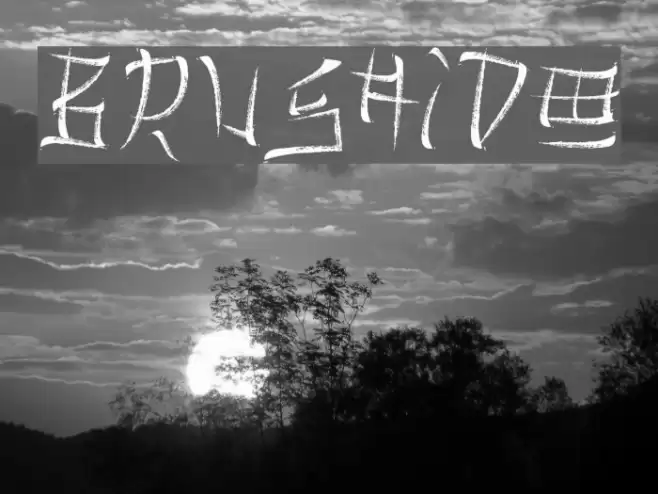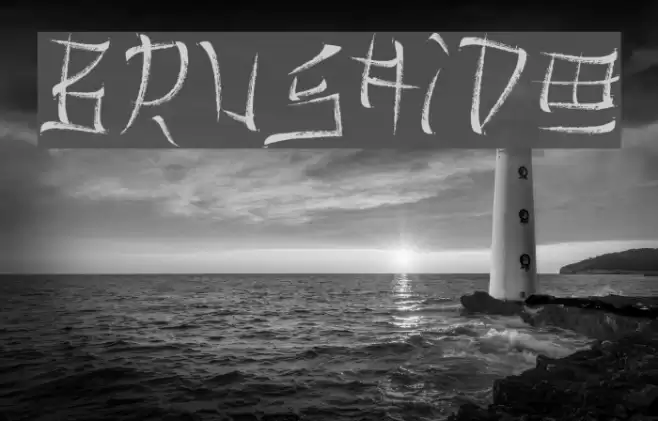
Brushido Font
Brushido Description
This font exhibits a dynamic and artistic brushstroke style, reminiscent of traditional calligraphy. Each character is crafted with a sense of movement and fluidity, featuring varying stroke widths that create a lively and expressive appearance. The strokes are bold and confident, with a slightly rough texture that adds to the handcrafted feel. The overall design is both elegant and edgy, making it suitable for creative and artistic projects. The characters maintain a consistent height, while the width varies slightly, adding to the organic nature of the font.
A dynamic brushstroke font with an artistic and calligraphic style from Uncategorized fonts.
- Proposed Projects: Ideal for artistic projects, branding, posters, and invitations that require a creative and expressive touch.
- Use Case: Logos, Headlines, Artistic projects